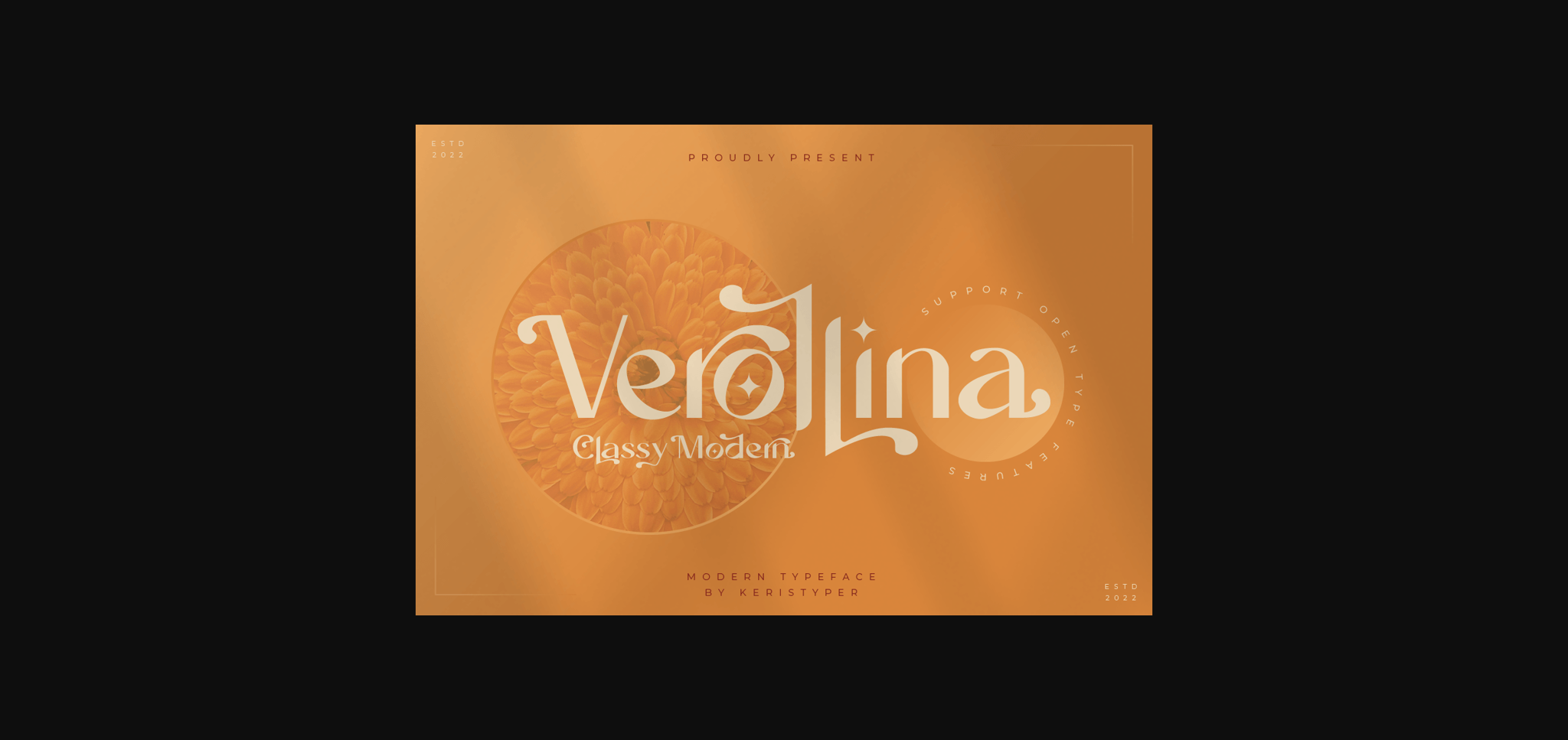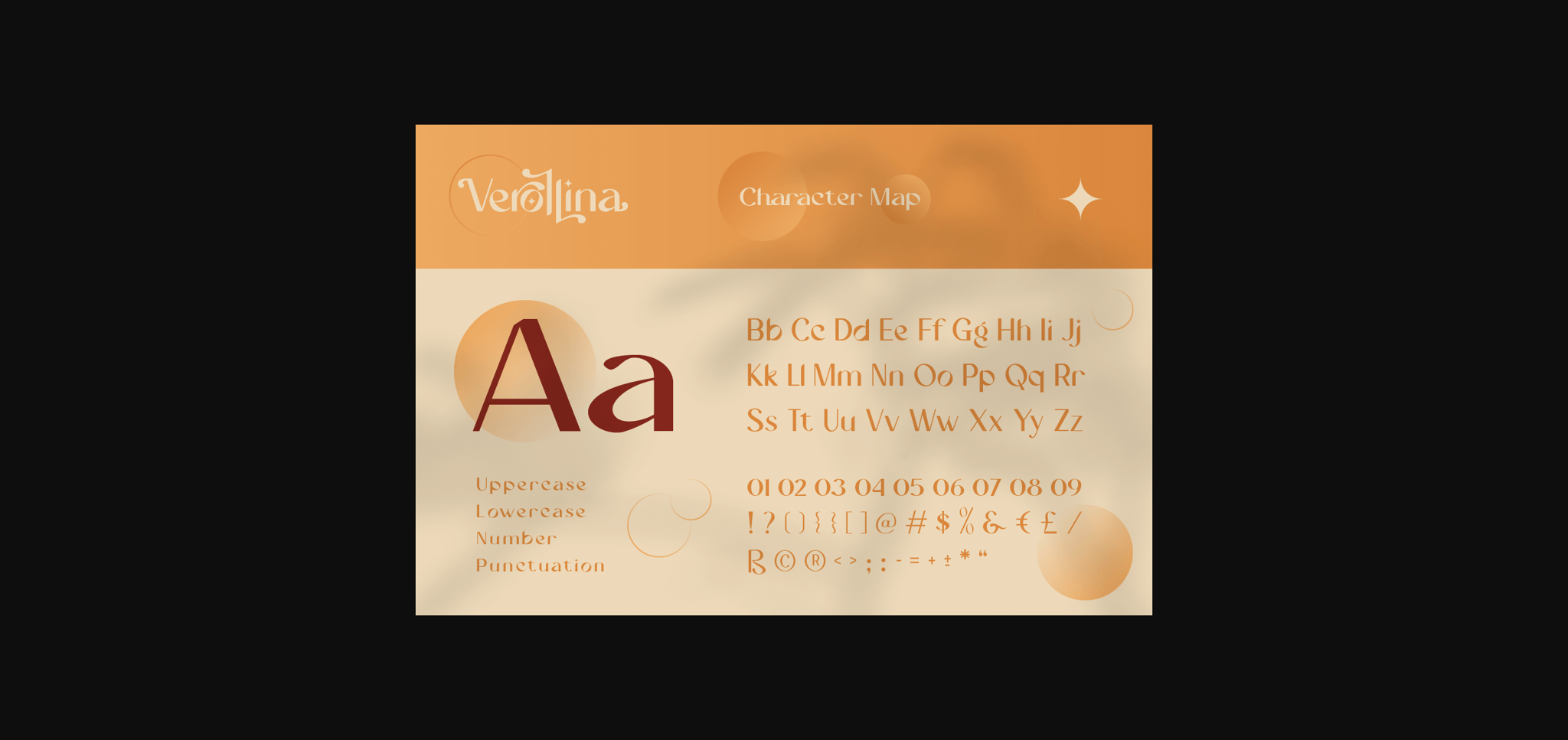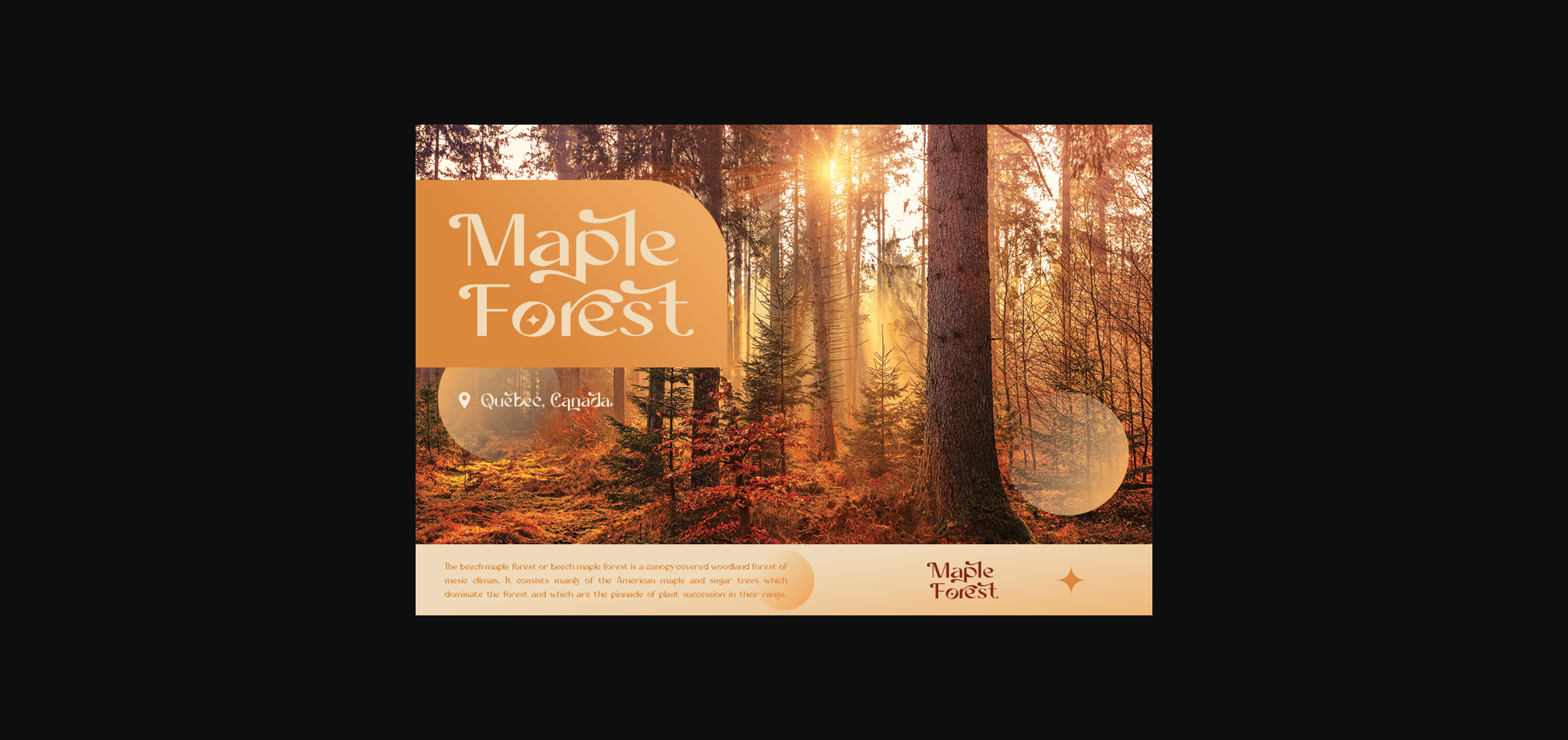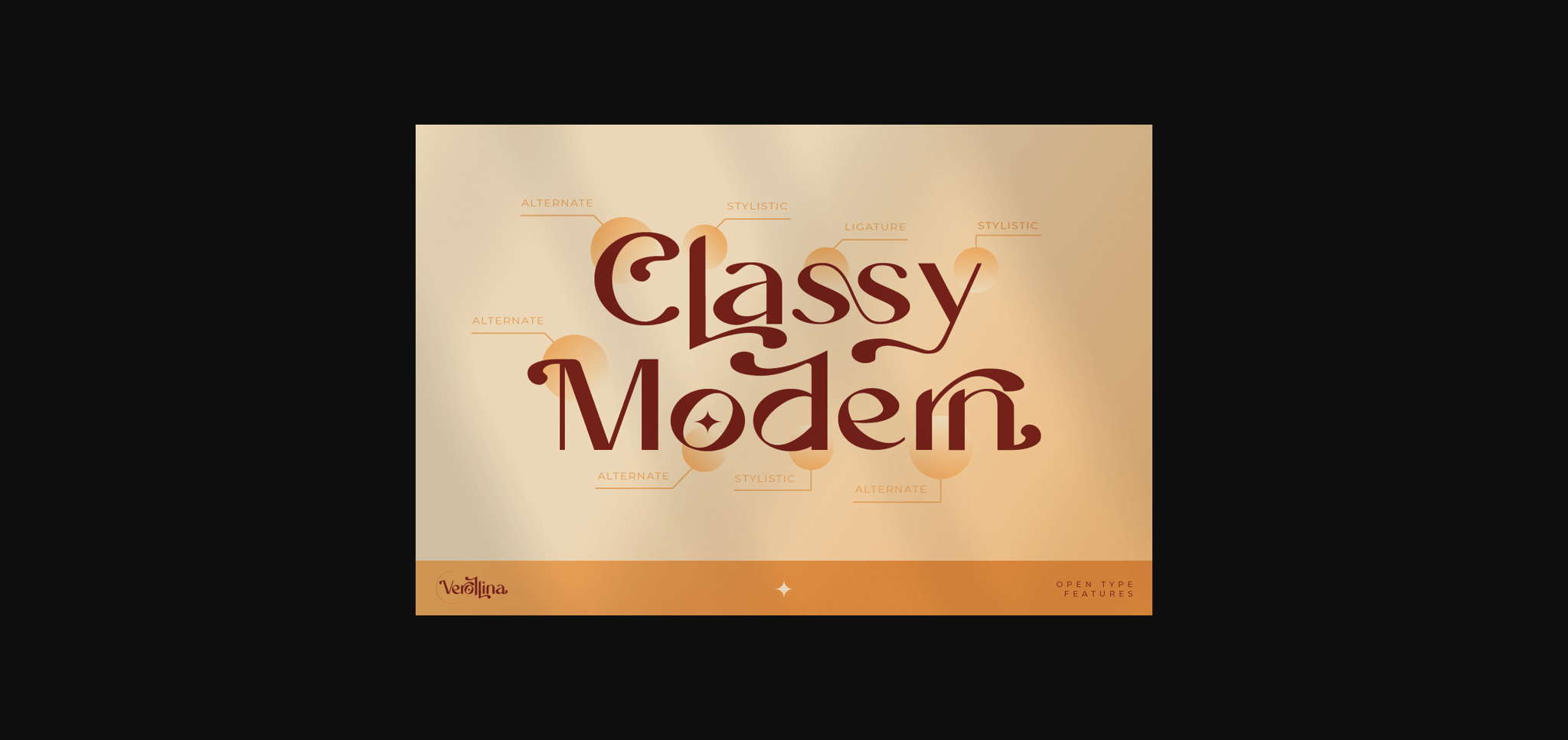
Verollina Font
About Verollina Font
Verollina is a minimalist, elegant, modern, and vintage sans serif font. This font is good for logo design, Social media, Movie Titles, Books Titles, short text, and even long text letters.